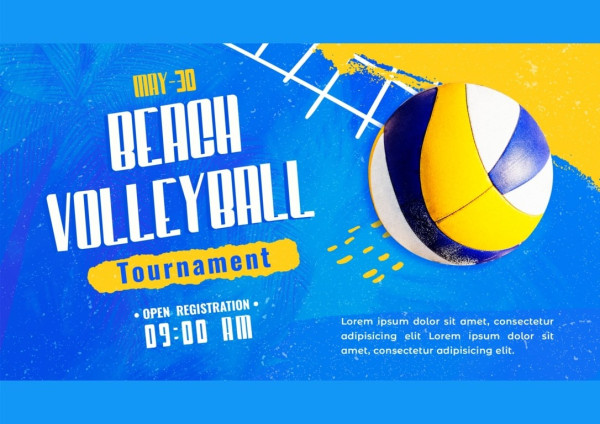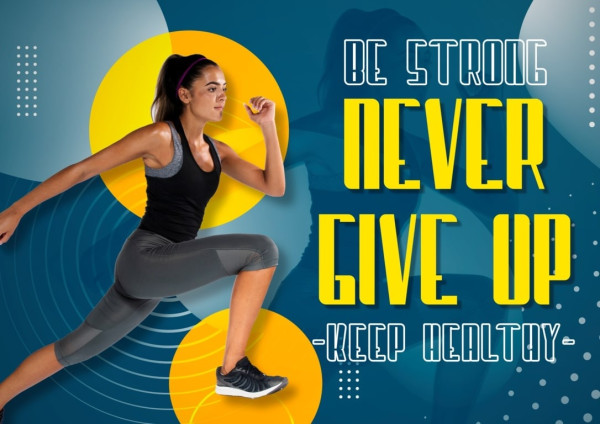
Basic Combat Font
Basic Combat Font, this condensed sans-serif font embodies a minimalist aesthetic through its slim proportions and sleek contours, making it an ideal choice for any branding or design project. Elevate your creations with this font that is tailor-made for headlines and titles, digital advertisements, brochures and flyers, infographics and data visualizations, navigation menus and labels, web designs, logotypes, t-shirts, and much more.